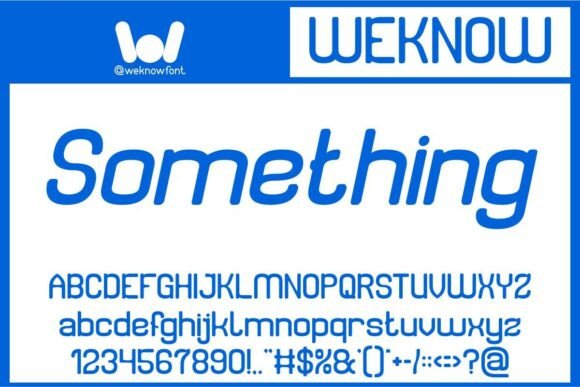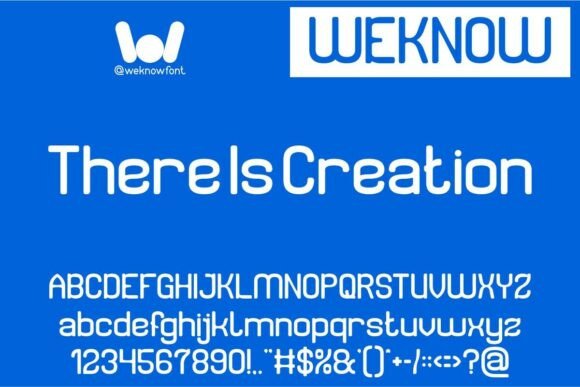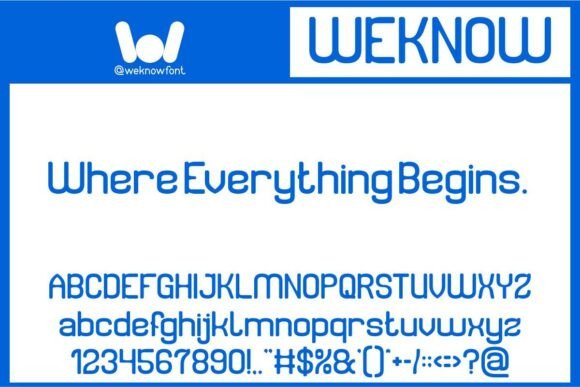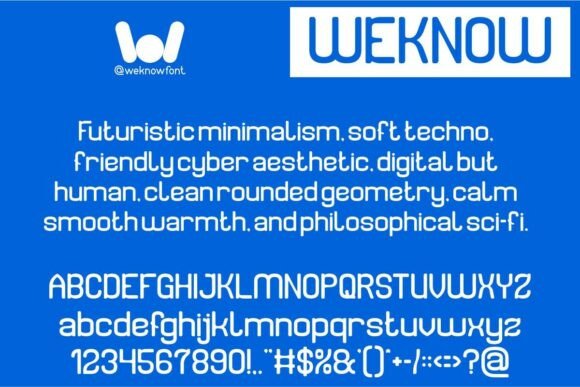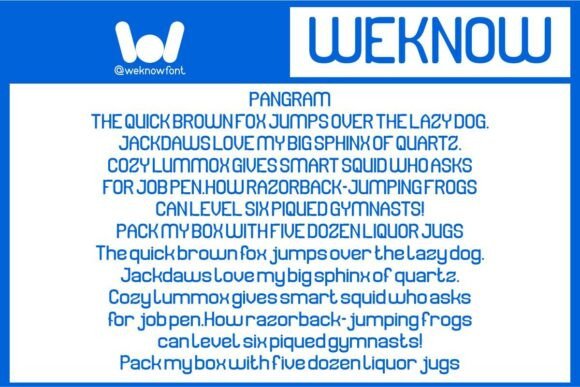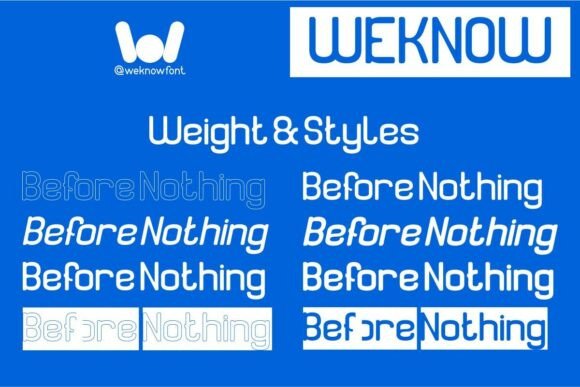
Introducing Before Nothing Font: The Epitome of Minimalist Elegance
In the realm of typography, few fonts manage to strike a balance between minimalism and aesthetic elegance. However, ‘Before Nothing’ is a notable exception – a versatile sans-serif font that not only embodies these qualities but also adds a whimsical touch. This futuristic and tech-inspired display font is designed to bring smoothness and sophistication to a wide array of creative projects.
Aesthetic Appeal and Versatility
Bound by the principles of minimalism, ‘Before Nothing’ boasts clean lines and uncomplicated curves, making it an ideal choice for designers seeking a modern and sleek look. Its aesthetic elegance ensures that it can elevate any design, whether it’s a striking headline, a corporate or brand identity, or even a website redesign. The font’s versatility is one of its standout features, allowing it to be used across various platforms and mediums.
Ideal for Creative Pursuits
‘Before Nothing’ is particularly well-suited for the apparel industry, where fashion and style are paramount. Its futuristic vibe makes it a great fit for music, movie, and game design, where creativity and innovation are key. Additionally, its elegant simplicity makes it an excellent choice for magazine design, where readability and style are crucial. Whether you’re a professional designer or a crafty DIY enthusiast, ‘Before Nothing’ can help take your project to the next level.
Beyond Traditional Design
The uses of ‘Before Nothing’ extend far beyond traditional design applications. It’s perfect for books, comics, and cartoons, where a modern and youthful look is desired. Social media platforms like YouTube and Instagram also provide a great outlet for this font, where its simplicity and elegance can help make your content stand out. Moreover, ‘Before Nothing’ can be a game-changer for web design, allowing you to create a clean, modern, and user-friendly website that reflects your brand’s personality.
A Unique Character
‘Before Nothing’ is more than just a font; it’s a unique character that can enhance the narrative of every design it graces. Its ability to convey a sense of futurism and innovation makes it an excellent choice for brands and designers looking to make a statement. With ‘Before Nothing’, you can add a touch of whimsy and personality to your designs, setting them apart from the crowd.
Design and Readability
One of the key strengths of ‘Before Nothing’ is its exceptional readability. Even at smaller sizes, the font remains clear and legible, making it perfect for body text and captions. Its smooth curves and lines also ensure that it looks great in both digital and print formats, providing flexibility for designers working across different mediums.
Tips for Using Before Nothing Font
- Experiment with Sizes: ‘Before Nothing’ looks great in both large and small sizes. Experiment with different sizes to find the perfect balance for your design.
- Mix and Match: Don’t be afraid to combine ‘Before Nothing’ with other fonts. Its versatility makes it easy to pair with a wide range of typography styles.
- Play with Colors: The font’s simplicity makes it a great canvas for creative color choices. Experiment with different colors to find the perfect match for your brand or design.
‘Before Nothing’ is a game-changing font that offers a unique blend of minimalism, aesthetic elegance, and whimsy. Its versatility, readability, and futuristic vibe make it an excellent choice for a wide range of creative pursuits. Whether you’re a professional designer or a crafty DIY enthusiast, ‘Before Nothing’ is sure to become a go-to font in your collection. So why wait? Explore the possibilities of ‘Before Nothing’ today and take your designs to new heights!